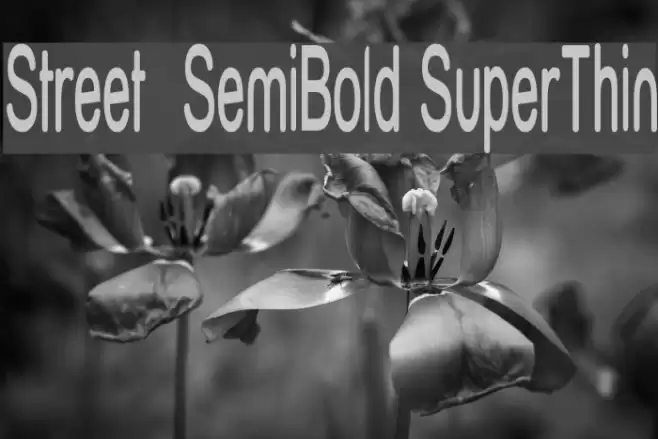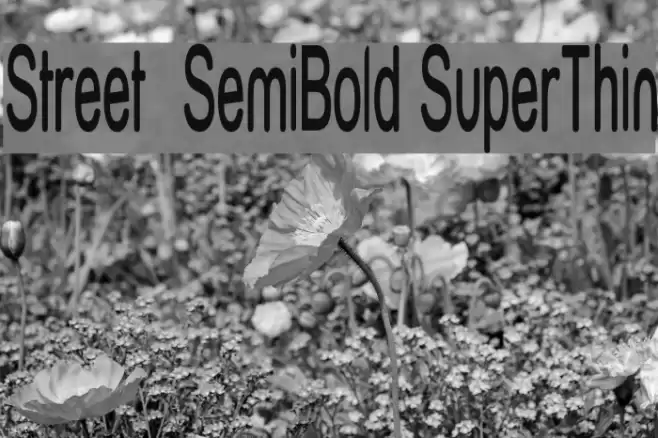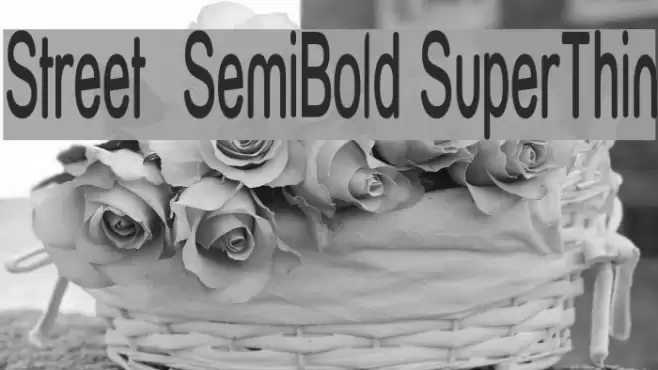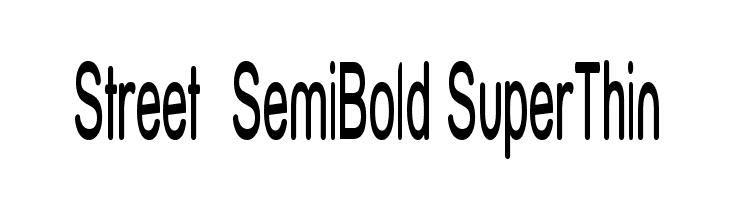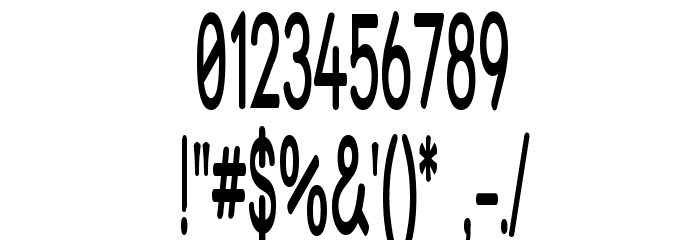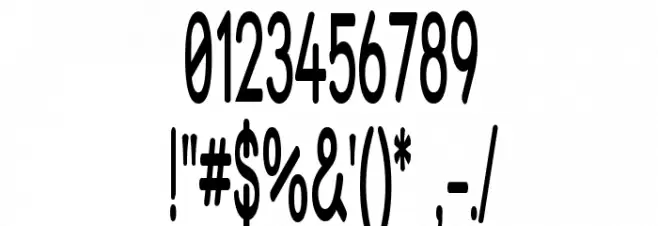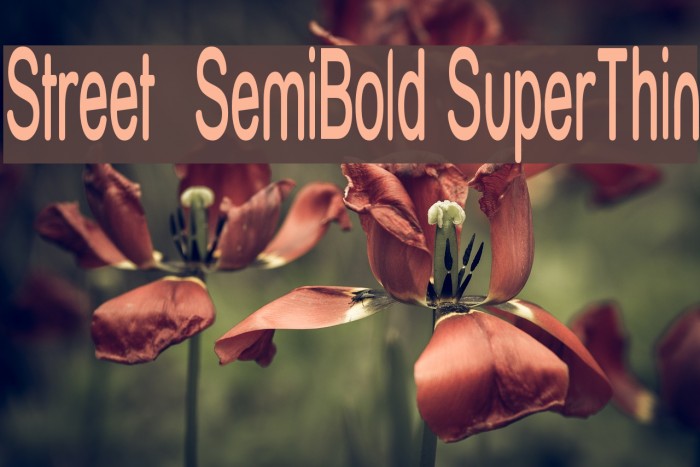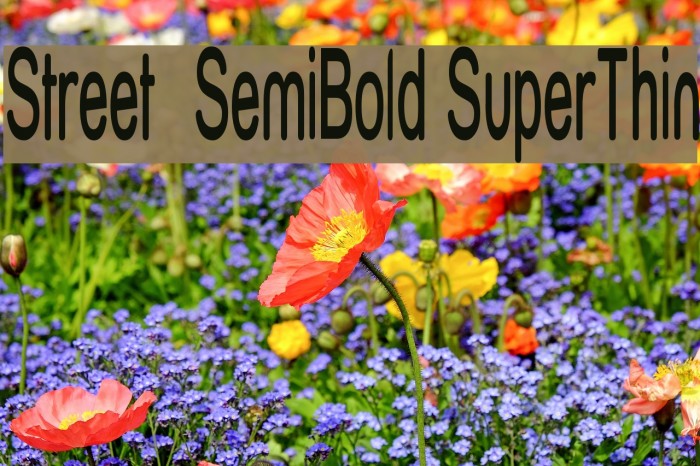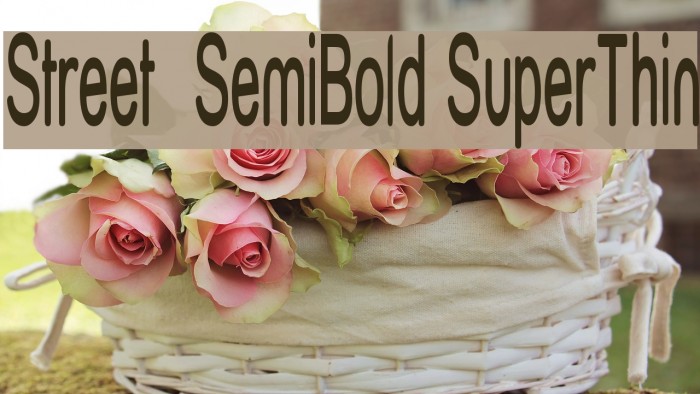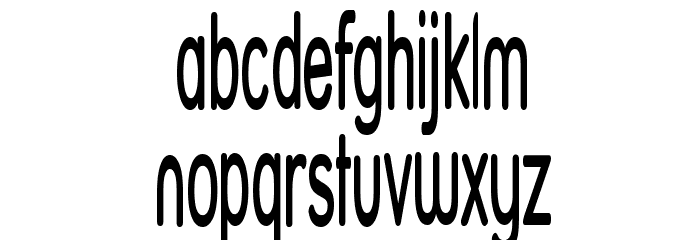
Street SemiBold SuperThin Font
Street SemiBold SuperThin Description
This font features a clean and modern sans-serif style with a semi-bold weight. The characters are evenly spaced, providing a balanced and readable appearance. The uppercase letters are slightly taller than the lowercase, maintaining a consistent line weight throughout. The numerals are clear and distinct, making them easily legible. Special characters are well-defined, adding versatility to the font. Its simplicity and clarity make it suitable for a variety of design applications.
A clean, modern sans-serif font with semi-bold weight and even spacing from Uncategorized fonts.
- Proposed Projects: Ideal for branding, signage, digital interfaces, and editorial design due to its clarity and modern aesthetic.